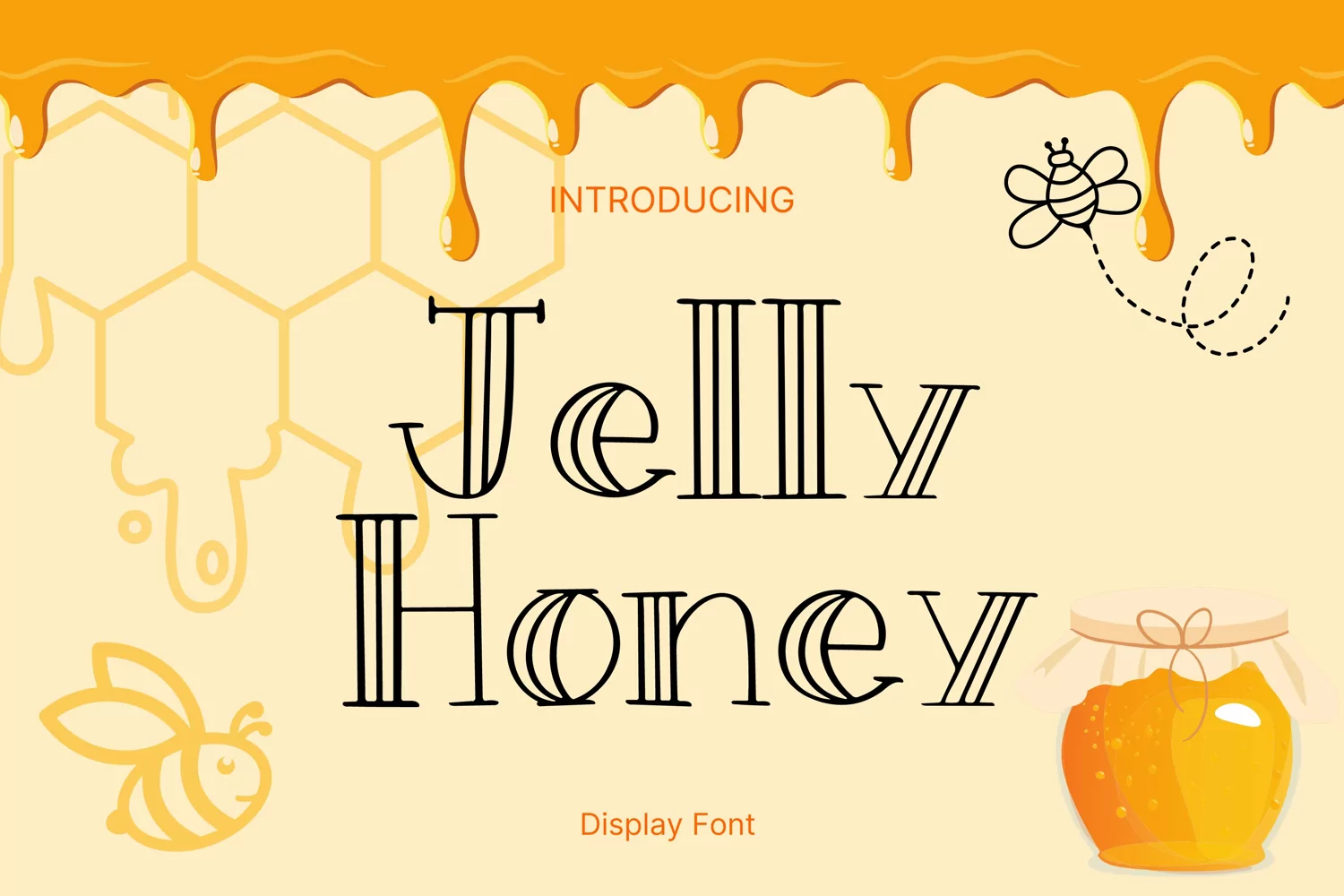
Jelly Honey Style
JellyHoney
Jelly Honey Style is a whimsical and clean handwritten font. It can easily be matched to an incredibly large set of projects, so add it to your creative ideas and notice how it makes them stand out!